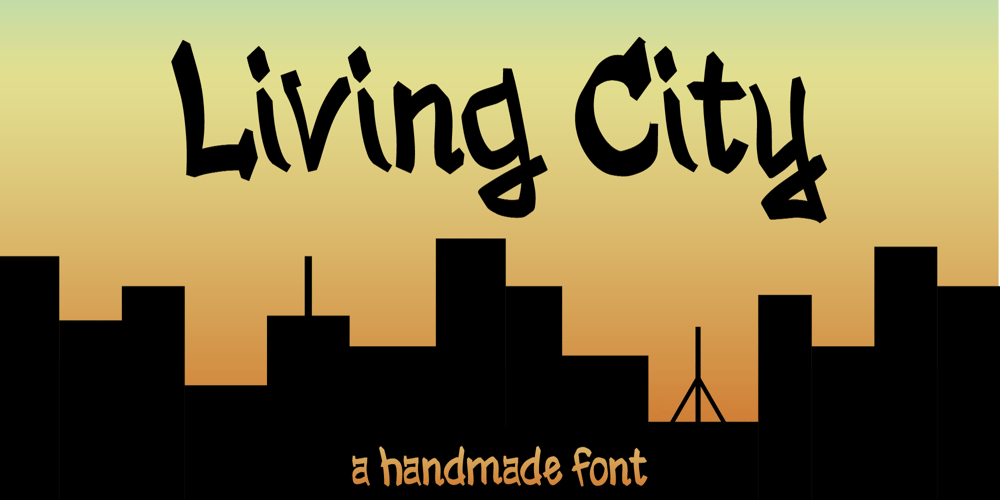
Living City
Living City font
Living City Font Family was designed by Jess J and published by Type Avenue. Living City contains 1 styles and family package options. With its natural handwritten style, this font is perfect to use for an urban project. Living City is a modern, minimalist graffiti font. It’s handmade and breaths an urban feel into any project. This font is perfect to use on posters or even on a website to add a modern element.